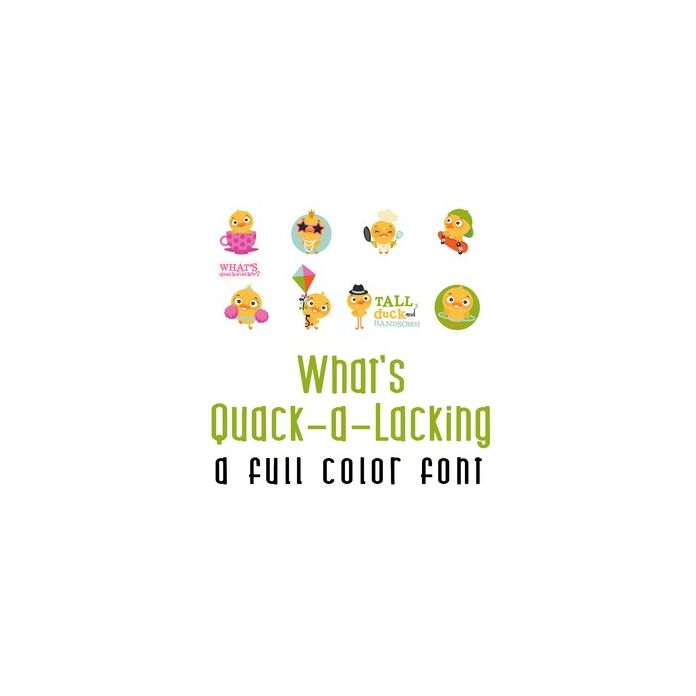
This adorable full-color doodlebat font features 26 adorable ducks and puns. Perfect for cards, crafts, gifts, decor, scrapbook pages, planner stickers, and more!